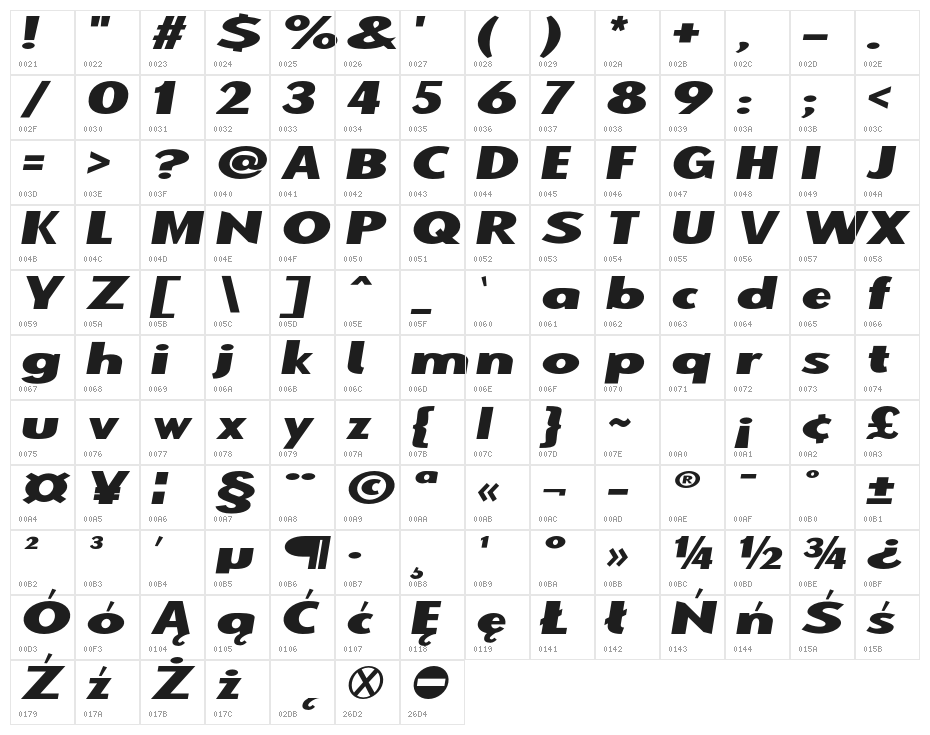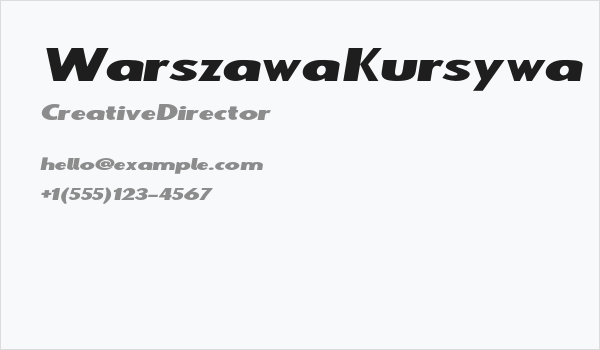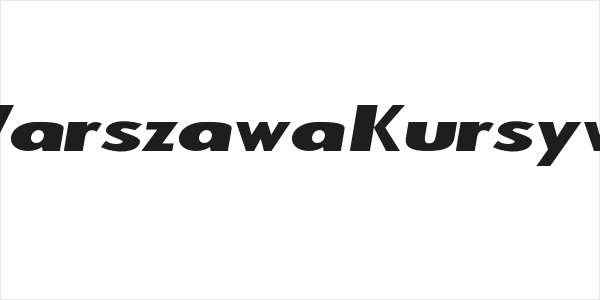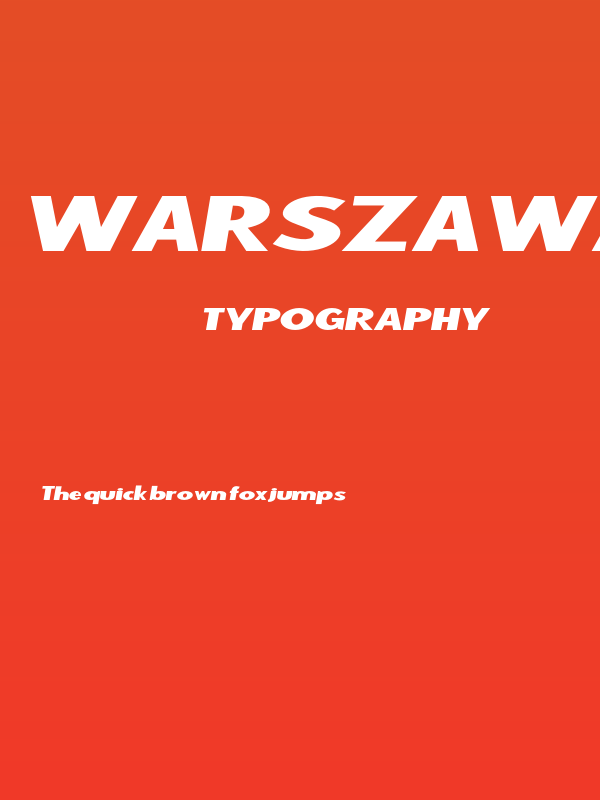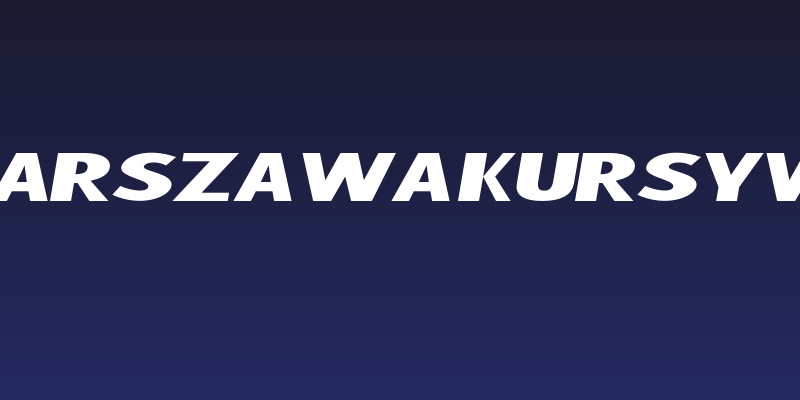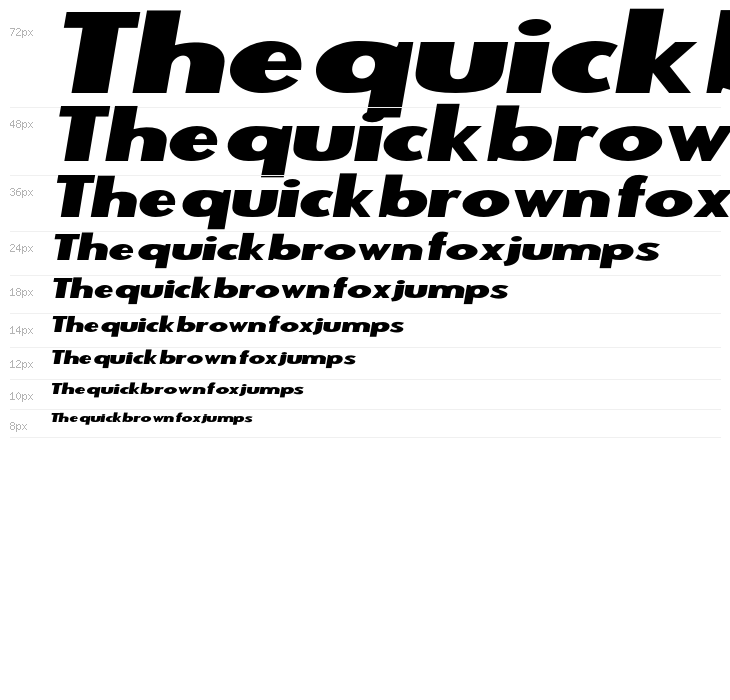
Warszawa Kursywa Font
Warszawa Kursywa Description
This font features a bold and dynamic style with a strong italic slant, giving it a sense of movement and energy. The characters are thick and robust, with a slight curvature that adds a touch of playfulness. The uppercase letters are particularly striking, with a commanding presence that makes them ideal for attention-grabbing headlines. The lowercase letters maintain the same boldness, ensuring consistency across different text cases. The numerals are equally bold, making them stand out clearly. The special characters are designed to match the overall style, ensuring a cohesive look. This font is perfect for projects that require a bold, energetic, and modern aesthetic.